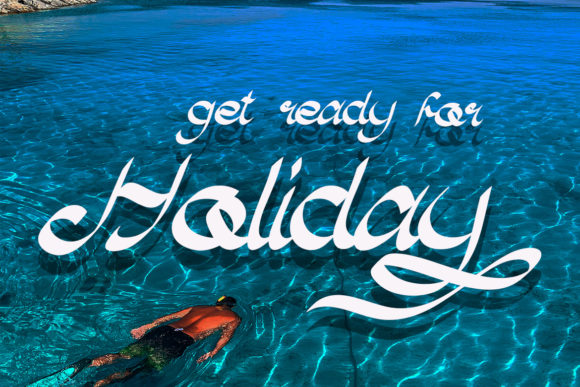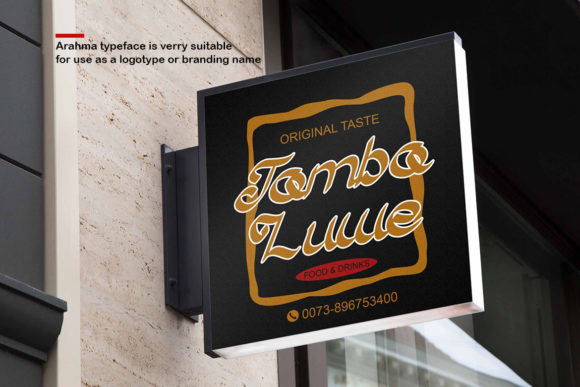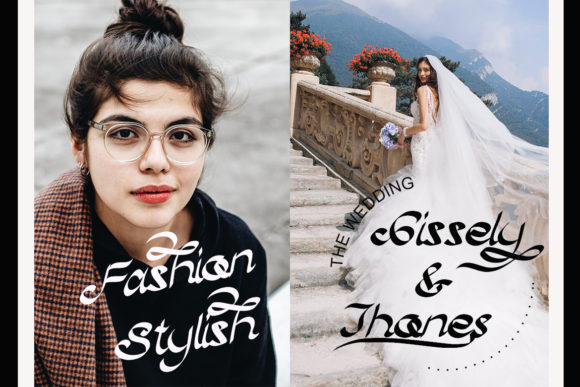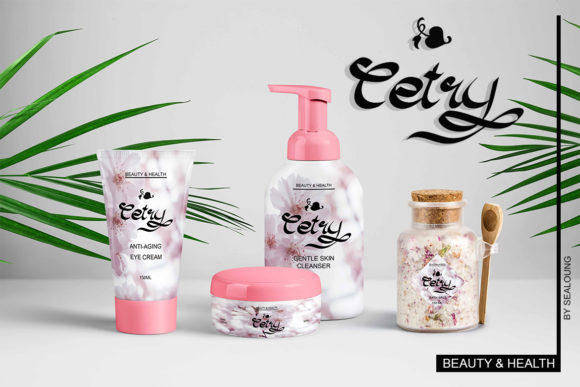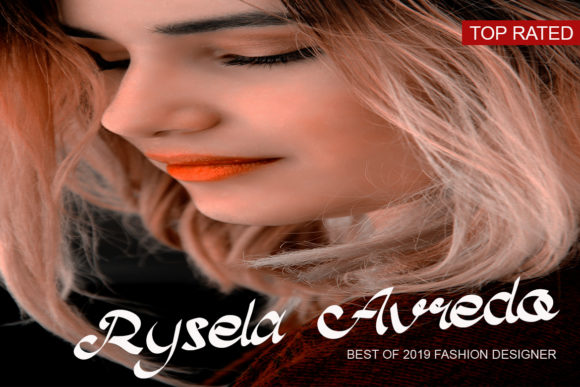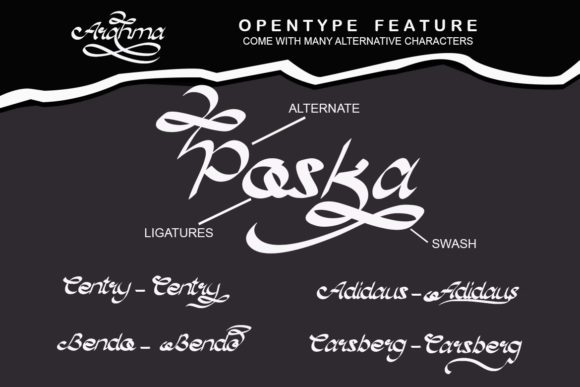
Arahma Font: The Sweet and Soft Hand-Lettered Script Font You Need
Are you a designer or crafter looking for a font that can add a touch of elegance and whimsy to your projects? Look no further than Arahma Font, a beautiful sweet, soft hand-lettered script font that’s perfect for creating stunning wedding invitations, stationary art, social media posts, and greeting cards.
The Authentic Feel of Arahma Font
Arahma Font boasts an authentic feel that’s hard to find in digital fonts. Its soft and delicate hand-lettered script style gives it a personal and intimate feel that’s perfect for creating special and meaningful projects. Whether you’re designing a wedding invitation or a greeting card, Arahma Font is sure to add a touch of warmth and personality to your work.
With Arahma Font, the creative possibilities are endless. You can use it to create:
- Gorgeous wedding invitations that will make your clients swoon
- Beautiful stationary art that will add a touch of elegance to any room
- Eye-catching social media posts that will make your followers stop and stare
- Cute greeting cards that will make your loved ones feel special
Special Features Galore
Arahma Font is more than just a beautiful font – it’s also packed with special features that will take your designs to the next level. These include:
- Alternate glyphs: add some extra flair to your designs with Arahma Font’s alternate glyphs
- Ligatures: create beautiful connections between letters with Arahma Font’s ligatures
Arahma Font is perfect for designers and crafters who want to add a touch of elegance and whimsy to their projects. Whether you’re a seasoned pro or just starting out, Arahma Font is easy to use and versatile enough to fit any design style.
Tips and Tricks for Using Arahma Font
Here are a few tips and tricks for getting the most out of Arahma Font:
- Experiment with different font sizes and colors to add depth and interest to your designs
- Use Arahma Font’s alternate glyphs and ligatures to add some extra flair to your designs
- Pair Arahma Font with other fonts to create a unique and eye-catching design
In conclusion, Arahma Font is a beautiful sweet, soft hand-lettered script font that’s perfect for designers and crafters who want to add a touch of elegance and whimsy to their projects. With its authentic feel, endless creative possibilities, and special features like PUA encoding, alternate glyphs, and ligatures, Arahma Font is a must-have for anyone looking to take their designs to the next level.